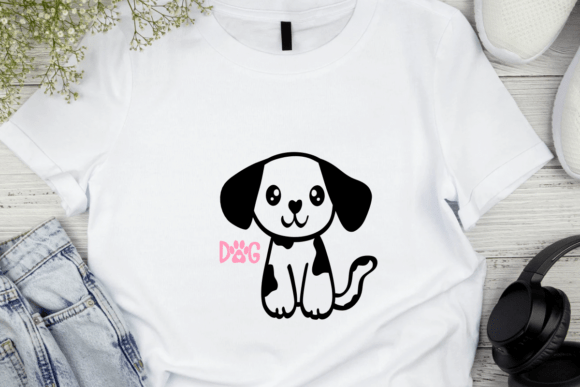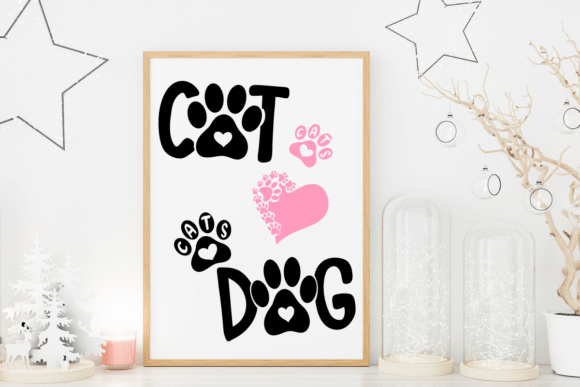
Love Dog and Cat Font
Celebrate your love for furry friends with the Love and Dog Cat Dingbats Font. This playful font features a collection of adorable dog and cat-themed illustrations, including paw prints, hearts, fishbones, and pet accessories. Ideal for pet branding, greeting cards, crafting projects, and more, this font brings a fun and heartwarming touch to your designs.